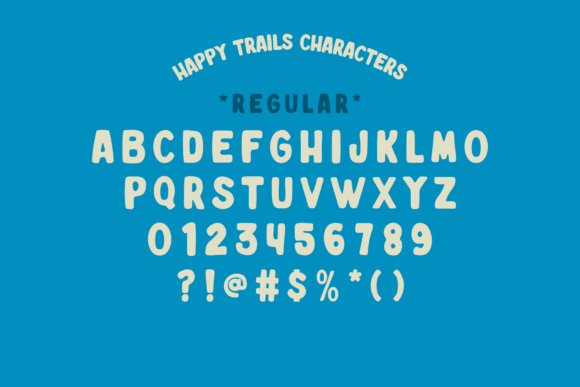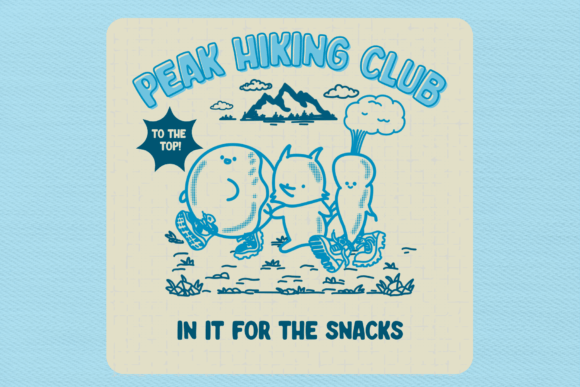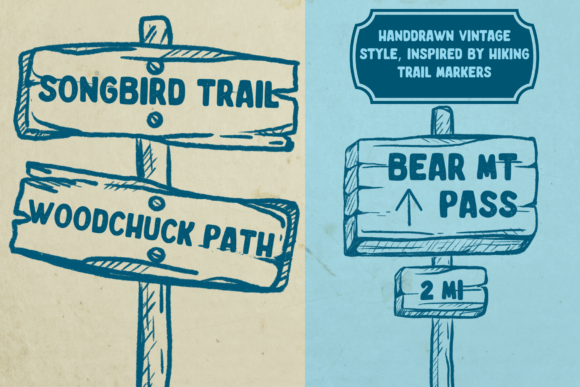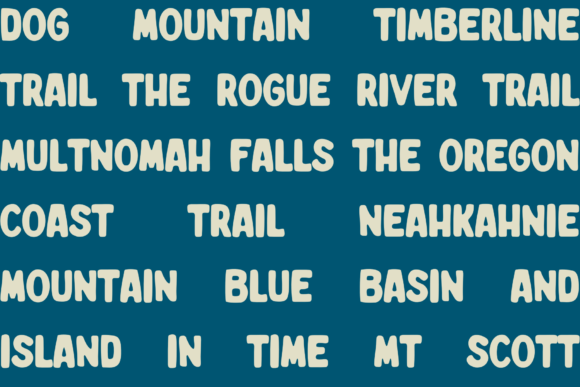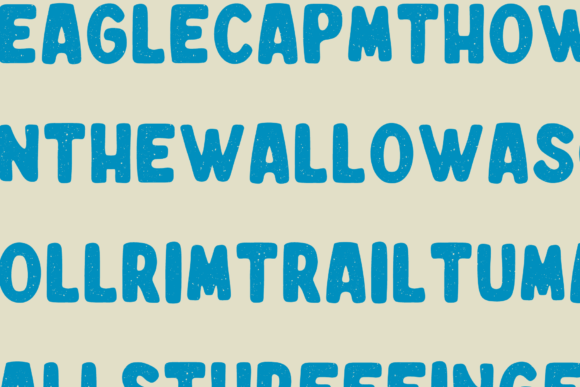
Introduction to Happy Trails Font
Do you remember the thrill of receiving a handwritten invitation to a camping trip or a hiking adventure? The joy of receiving a map with a personalized message, leading you to a secret trail or a hidden waterfall? That sense of excitement and adventure is exactly what the Happy Trails Font embodies – a delightful hand-drawn sans serif font that captures the spirit of the great outdoors.
As a designer, you’re always on the lookout for unique design resources that can elevate your creative project. The Happy Trails Font is a high-quality addition to your collection, perfect for adding a touch of nature to your designs. With its transparent background and rustic charm, this font is ideal for creating invitations, posters, apparel, and more that evoke a sense of wanderlust and adventure.
With the Happy Trails Font, you can infuse your designs with the allure of nature’s pathways and take your creative projects to new heights. Whether you’re working on a design project or simply want to add a personal touch to your everyday life, this font is sure to bring a smile to your face and a sense of excitement to your work.
Key Features of Happy Trails Font
- High-quality design resource with a unique, hand-drawn style perfect for creative projects.
- Includes a range of characters, including uppercase and lowercase letters, numbers, and special symbols, making it suitable for a variety of creative applications.
- Perfect for use in graphic design, digital art, and other creative pursuits where a unique, playful font is desired.
Honest Review: Happy Trails Font
I recently stumbled upon the Happy Trails Font and was excited to dive in and see what it had to offer. As a designer, I’m always on the lookout for high-quality design resources that can elevate my creative projects.
- ✨ What works well: The Happy Trails Font has a unique, playful vibe that’s perfect for creating fun and adventurous designs. The font is also highly customizable, making it easy to adjust the size and color to suit your needs.
- ✨ The font is also very versatile and can be used for a variety of creative projects, from social media graphics to print materials.
However, I did encounter a few limitations during my testing:
- ⚠️ The font may not be suitable for formal or professional projects, as it has a somewhat casual and whimsical feel.
Overall, I was impressed with the Happy Trails Font and would definitely recommend it to designers who are looking for a fun and creative design resource.